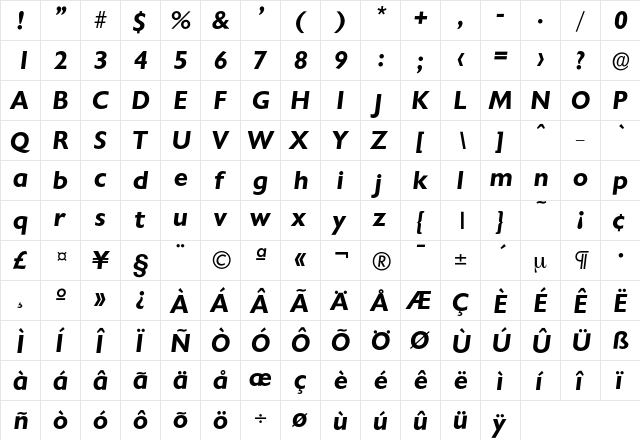
Chantilly-DemiBoldIta Regular Font Preview
Chantilly-DemiBoldIta Regular
Design Context for Chantilly-DemiBoldIta Typeface
Chantilly-DemiBoldIta takes a measured approach to typography — its balanced proportions and neutral character make it a reliable workhorse for both digital and print work. Its bold stroke weight gives it real presence on the page.